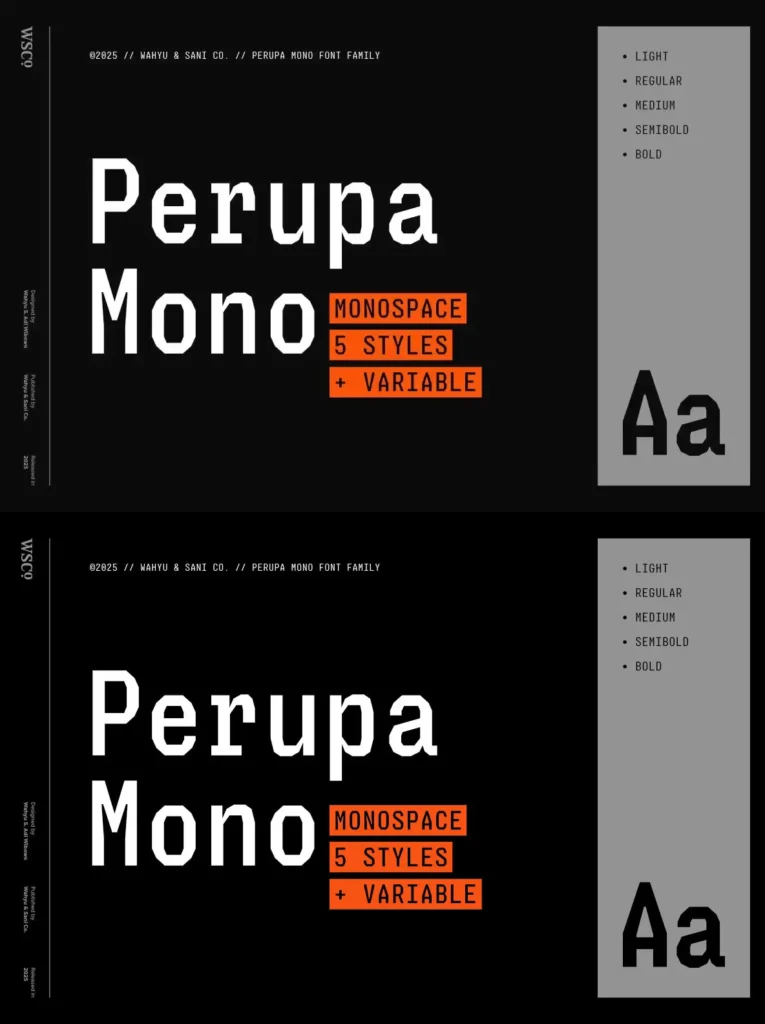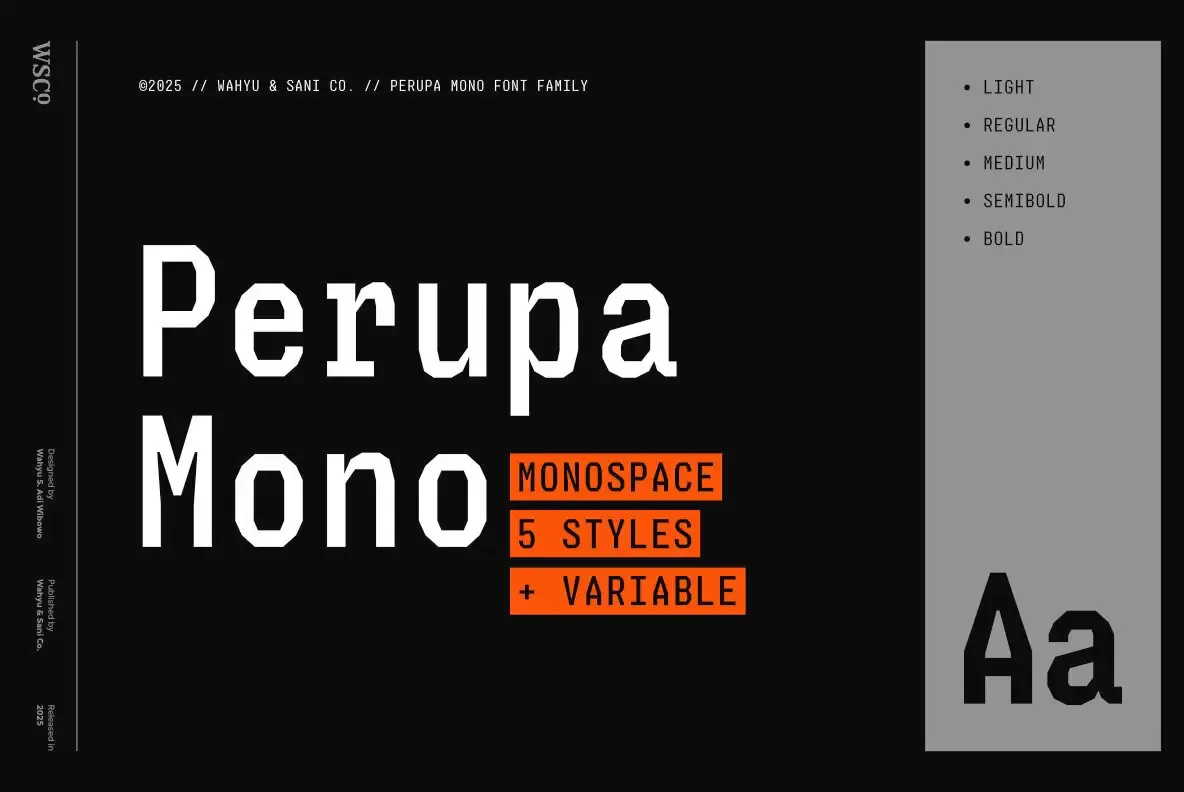
Perupa Mono: Precision in Every Pixel
A polygonal monospace font family designed for precision and readability. Its sans serif styling and fixed width support clean alignment, making it a reliable choice for coding, terminal use, and any interface where consistent spacing matters.
The rigid modular structure keeps forms crisp and deliberate, even in dense layouts. With a narrow width and five weight styles from Light to Bold, Perupa Mono adapts well across UI design, dashboards, and digital environments that require clarity at a glance. Designed by Wahyu & Sani Co..
Key Features
Sans Serif:
Clean and minimalist design for optimal readability.
Fixed Width:
Consistent character width ensures perfect alignment and readability in code and tabular settings.
Rigid Modular Shape:
Geometric shapes and clean lines create a cohesive and modern aesthetic.
Narrow Width:
Optimized for dense text and coding environments.
5 Weight Styles:
From Light to Bold, Perupa Mono offers a range of weights to suit various design needs.
Perupa Mono is exceptionally suited for:
Coding and development.
Terminal and command-line interfaces.
Data visualization and dashboards.
UI design and prototyping.
Dynamic digital signage and running text display.
Any application where precision, readability, and consistency are crucial.